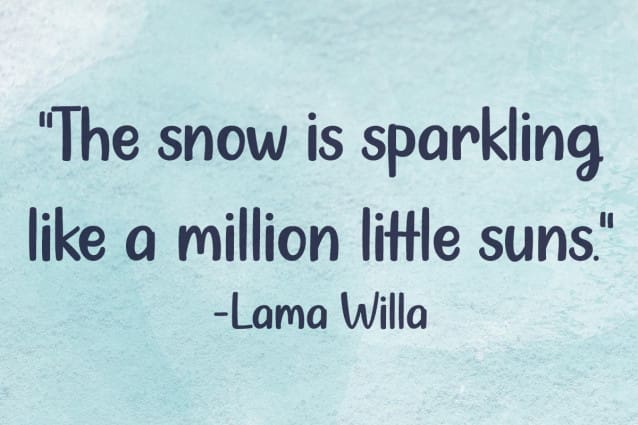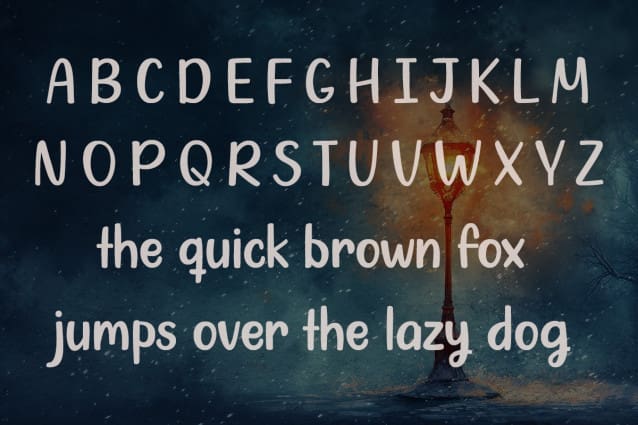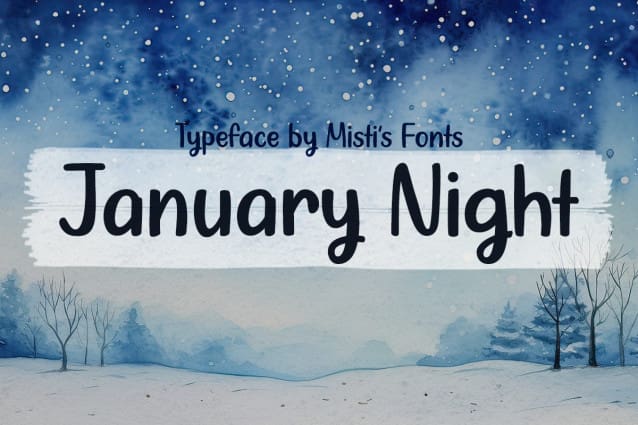
January Night Font
January Night Font is a charming handwritten font that exudes warmth and whimsy. Its playful, organic strokes are perfect for crafting, invitations, logos, and social media posts. Add a cozy, personal touch to your designs with this versatile and stylish typeface!